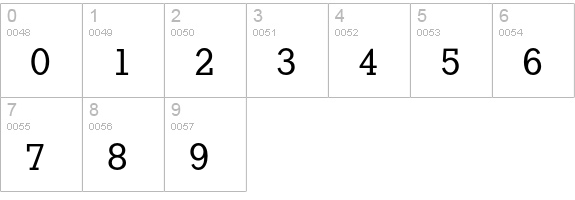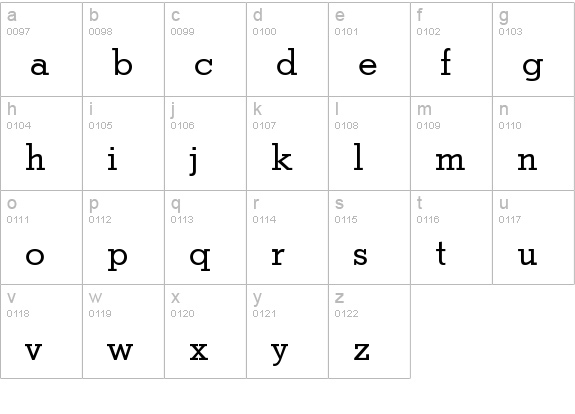
StymieEF-Medium is a balanced, medium-weight variant in the StymieEF typeface family \xE2\x80\x94 well suited to sub-headlines, navigation, and balanced editorial work.
StymieEF-Medium is a versatile and elegant font that adds a touch of sophistication to any design project. With its clean lines and balanced proportions, this font is perfect for both headers and body text. The medium weight strikes the right balance between readability and impact, making it suitable for a wide range of applications. What's even better is that StymieEF-Medium is available for free download at FontsMarket.com. This means that you can easily access this high-quality font without any cost, allowing you to enhance your projects with a professional touch without breaking the bank. Don't miss out on the opportunity to elevate your designs with StymieEF-Medium - download it for free today!